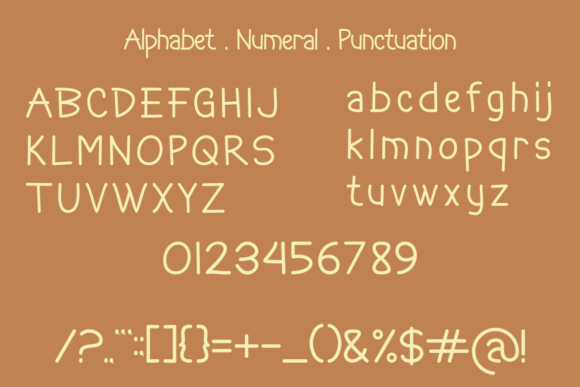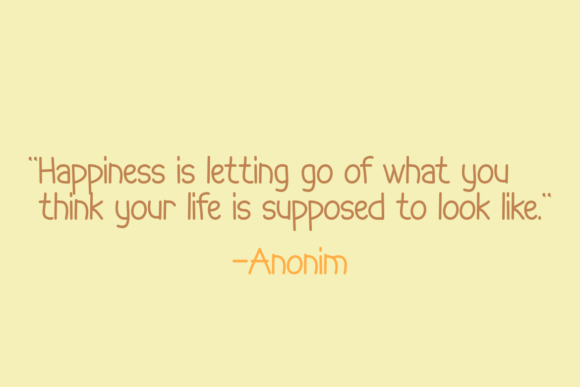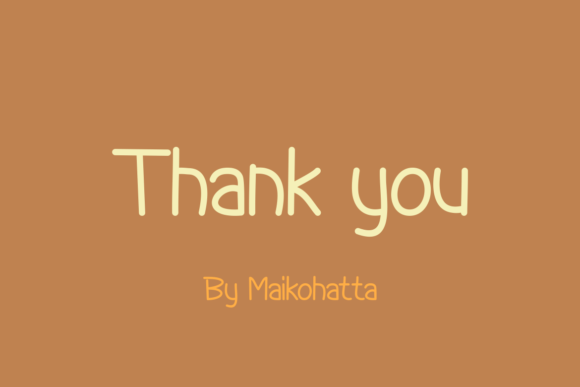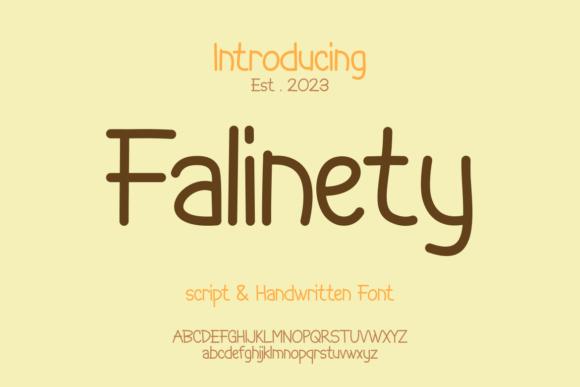
Introducing Falinety Font: The Modern Display Font for Bold Designs
In the world of design, fonts play a crucial role in conveying messages, expressing emotions, and creating visual identities. For designers and crafters, finding the perfect font can be a daunting task. However, with the introduction of Falinety Font, a modern display font, your search is over. This bold and authentic font is designed to elevate your branding projects, making it suitable for logos, t-shirt printing, esports, and many more applications.
What is Falinety Font?
Falinety Font is a modern display font that exudes confidence and style. Its bold and authentic design makes it perfect for creating striking visuals that grab attention. The font’s unique characteristics and versatility allow it to stand out in a wide range of contexts, from digital media to print materials.
Key Features of Falinety Font
- Bold and Authentic Design: Falinety Font boasts a bold and authentic design that commands attention. Its unique style ensures that your designs stand out from the crowd.
- Versatility: This font is suitable for various applications, including logos, t-shirt printing, esports, and more. Its adaptability makes it an excellent addition to any designer’s toolkit.
- Easy to Read: Despite its bold design, Falinety Font remains easy to read, ensuring that your message is conveyed clearly and effectively.
- High-Quality: Falinety Font is a high-quality font, carefully crafted to ensure that it looks great in any context.
Use Cases for Falinety Font
Falinety Font is an incredibly versatile font that can be used in a variety of contexts. Here are some examples of how you can use this font to elevate your designs:
- Logo Design: Create a bold and memorable logo for your brand with Falinety Font. Its unique design ensures that your logo stands out and leaves a lasting impression.
- T-Shirt Printing: Falinety Font is perfect for t-shirt printing. Its bold design and easy readability make it an excellent choice for creating eye-catching designs.
- Esports: The font’s modern and sleek design makes it an excellent choice for esports-related projects, such as team logos, jerseys, and marketing materials.
- Digital Media: Use Falinety Font to create stunning digital media, including social media graphics, posters, and advertisements.
Why Choose Falinety Font?
With so many fonts available, why choose Falinety Font? Here are some reasons why this font stands out:
- Unique Design: Falinety Font boasts a unique design that sets it apart from other fonts. Its bold and authentic style ensures that your designs stand out.
- High-Quality: This font is carefully crafted to ensure that it looks great in any context. Its high-quality design makes it perfect for professional projects.
- Versatility: Falinety Font is incredibly versatile, making it suitable for a wide range of applications.
In conclusion, Falinety Font is an exceptional modern display font that is perfect for designers and crafters looking to create bold and striking visuals. Its unique design, versatility, and high-quality make it an excellent addition to any designer’s toolkit. Whether you’re working on a logo, t-shirt printing, esports, or digital media project, Falinety Font is sure to elevate your designs and leave a lasting impression.